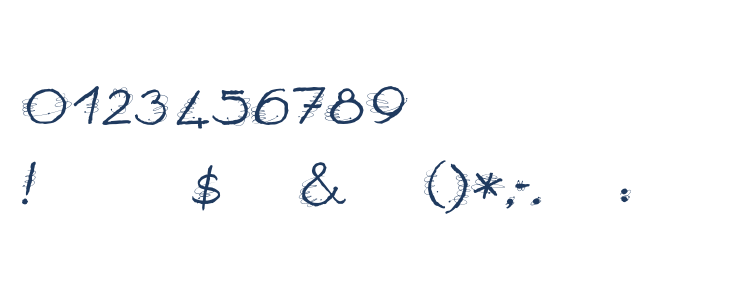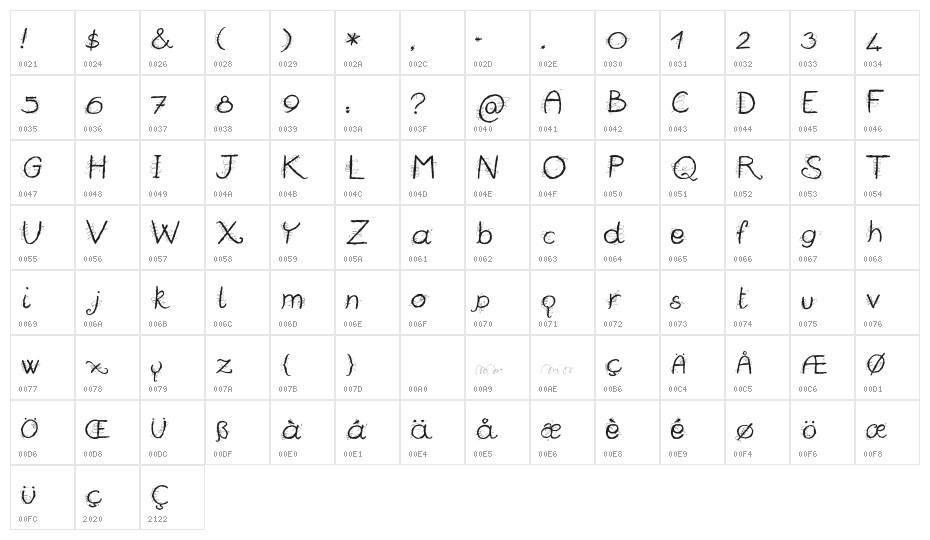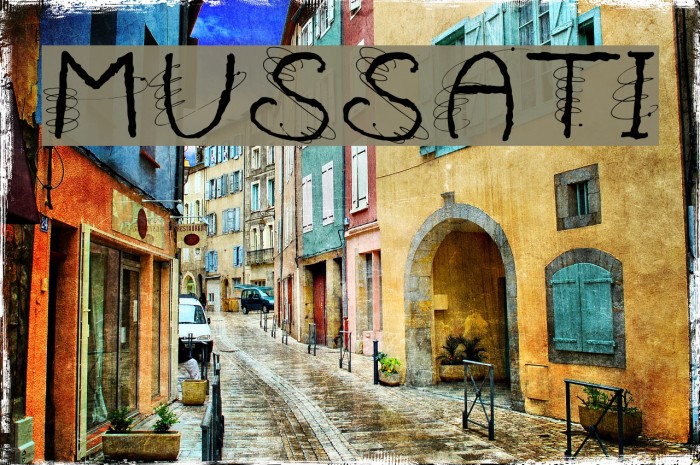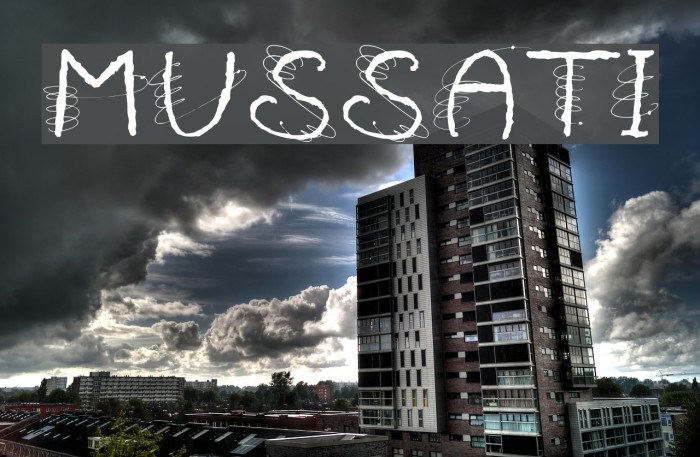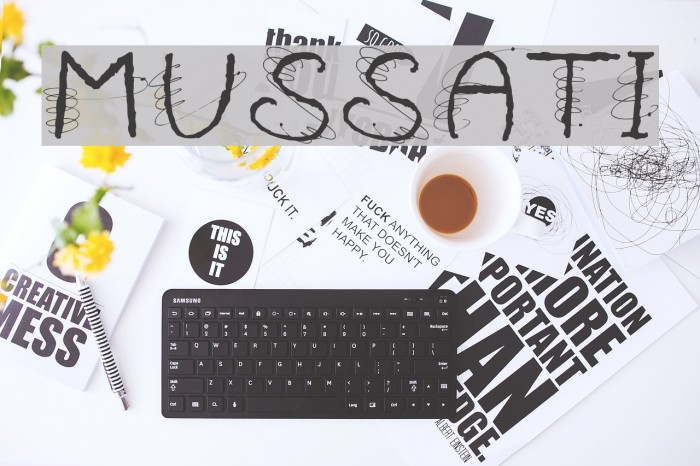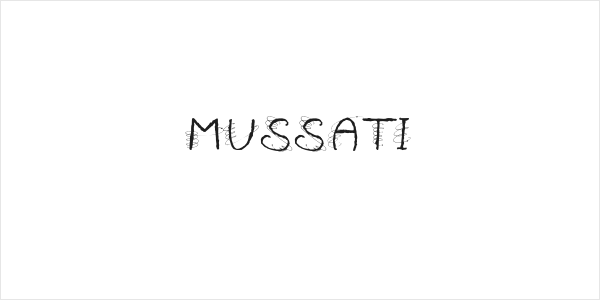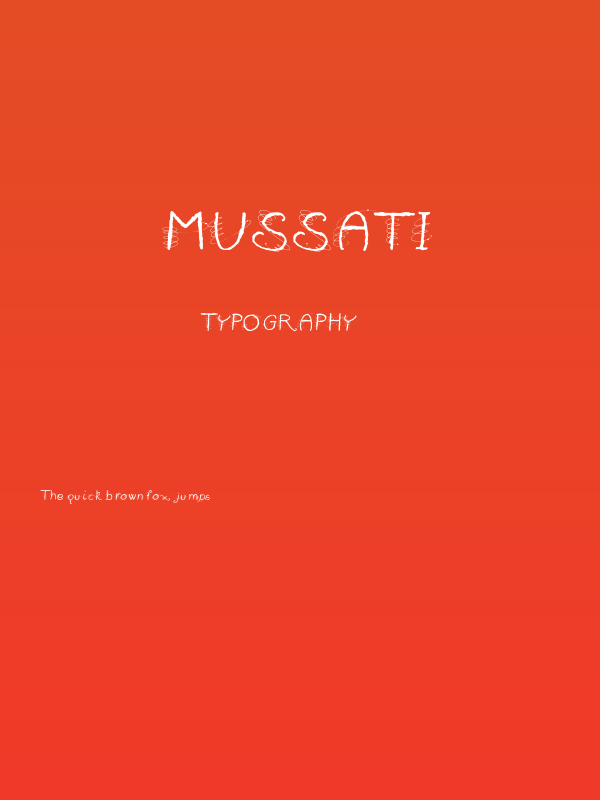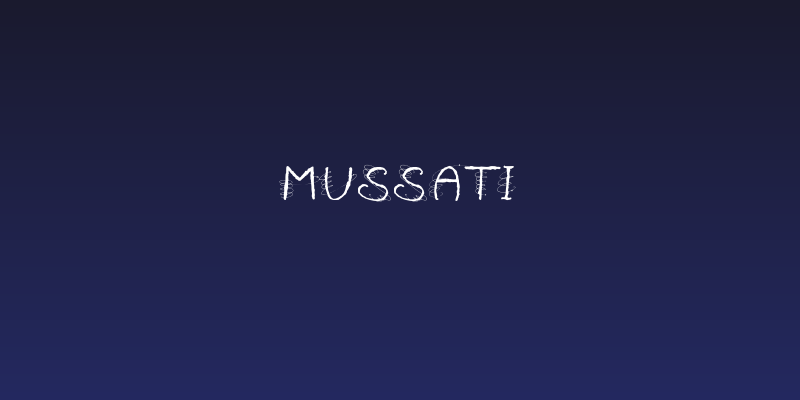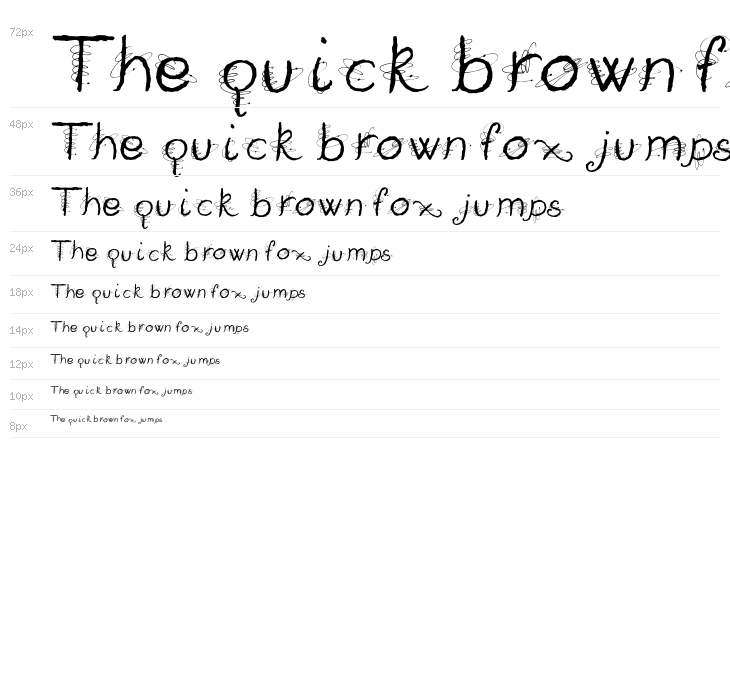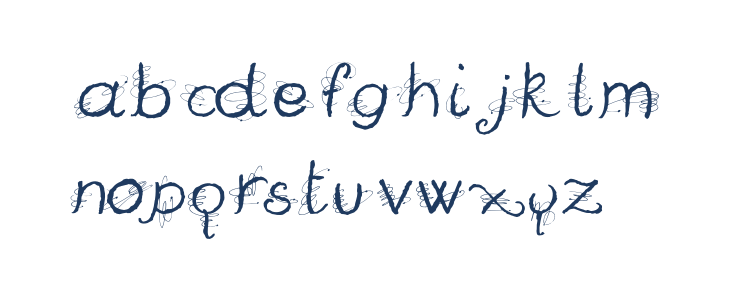
MUSSATI Font
MUSSATI Description
This font features a unique and artistic design with a hand-drawn appearance. Each character is adorned with intricate, swirling embellishments that give it a whimsical and decorative feel. The strokes are uneven, adding to the handcrafted look, while maintaining legibility. The uppercase and lowercase letters share a consistent style, with the uppercase being slightly more pronounced. Numbers and special characters are equally detailed, making this font suitable for creative and expressive projects.
| Proposed Projects | Ideal for artistic projects, invitations, greeting cards, and creative branding. |